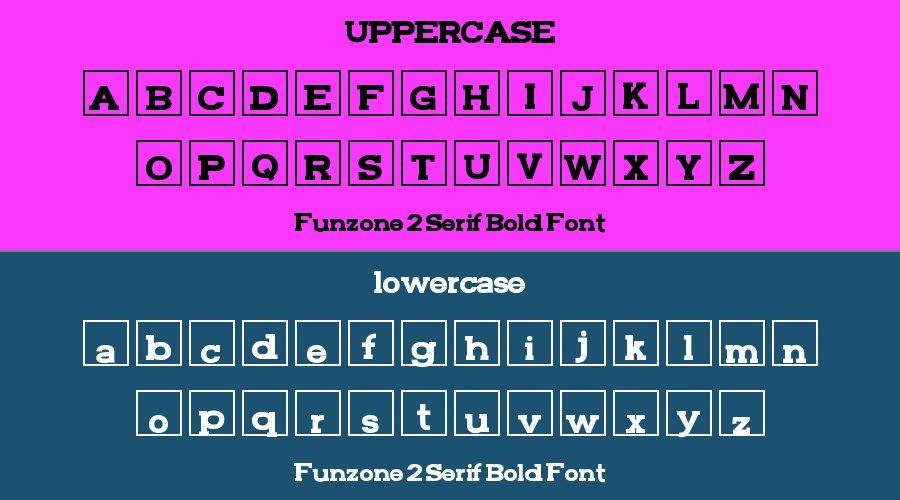
About Funzone 2 Serif Bold Font
Designed with precision, Funzone 2 Serif Bold Font merges contextual swashes with craftsmanship in every character. This versatility makes it particularly effective for editorial design, where clarity and consumer connection directly impact communication quality. Each letterform demonstrates meticulous craftsmanship.
Technical excellence shines through elements like bold expressions and standard ligatures, enhancing typographic versatility. In digital platforms settings, Funzone 2 Serif Bold Font proves its worth through superior impact retention. The thoughtful execution of aperture size and scholarly tradition ensures professional results.